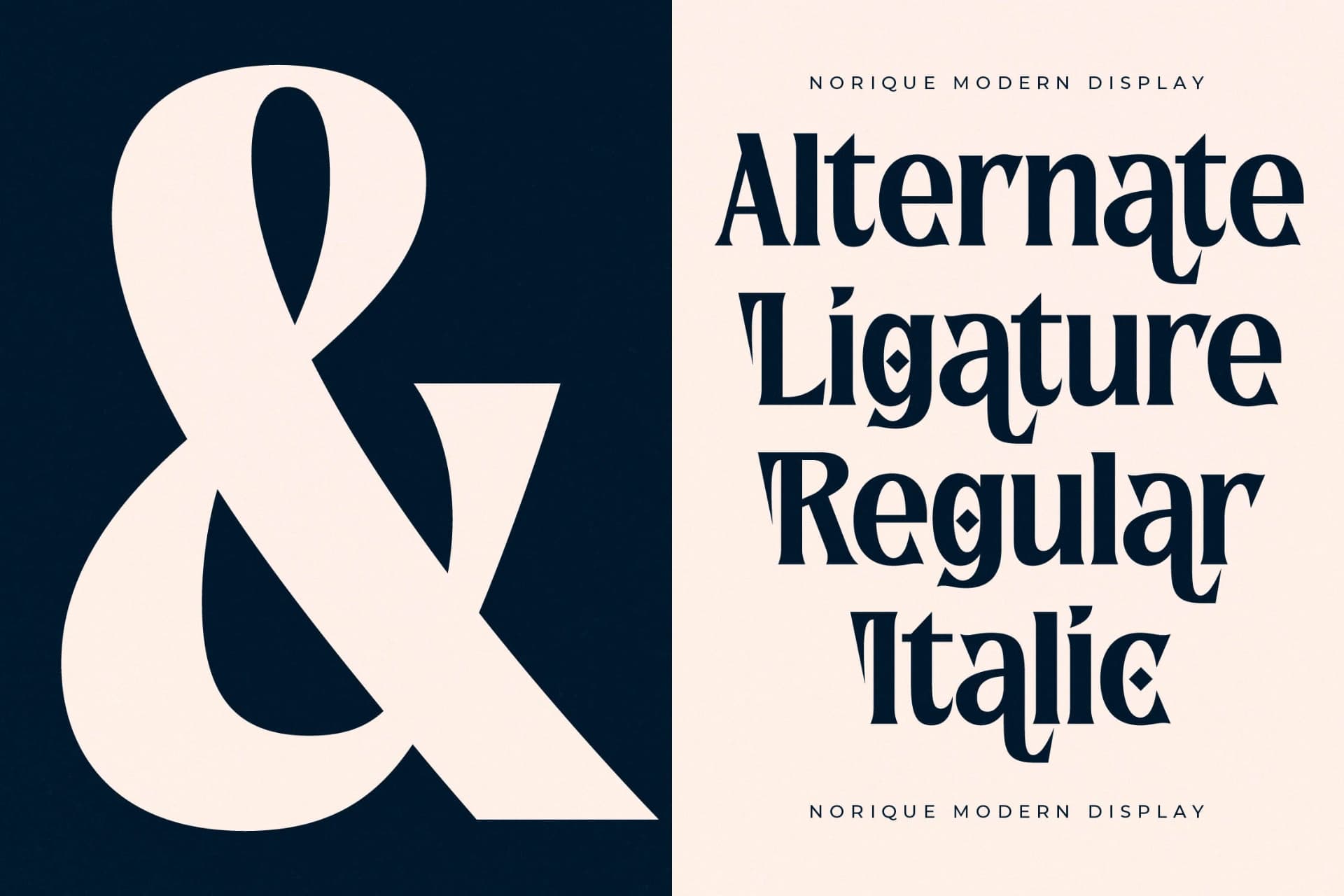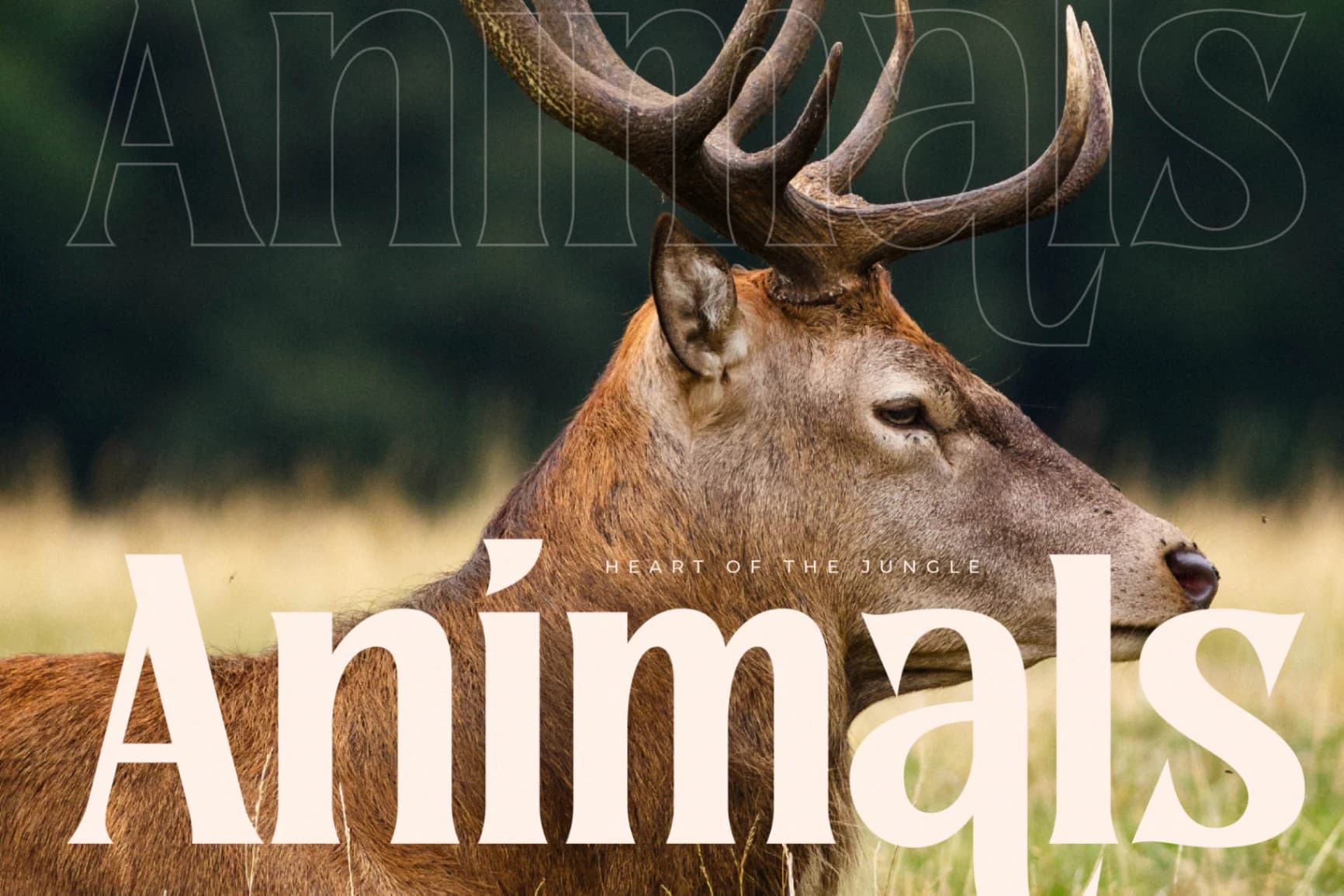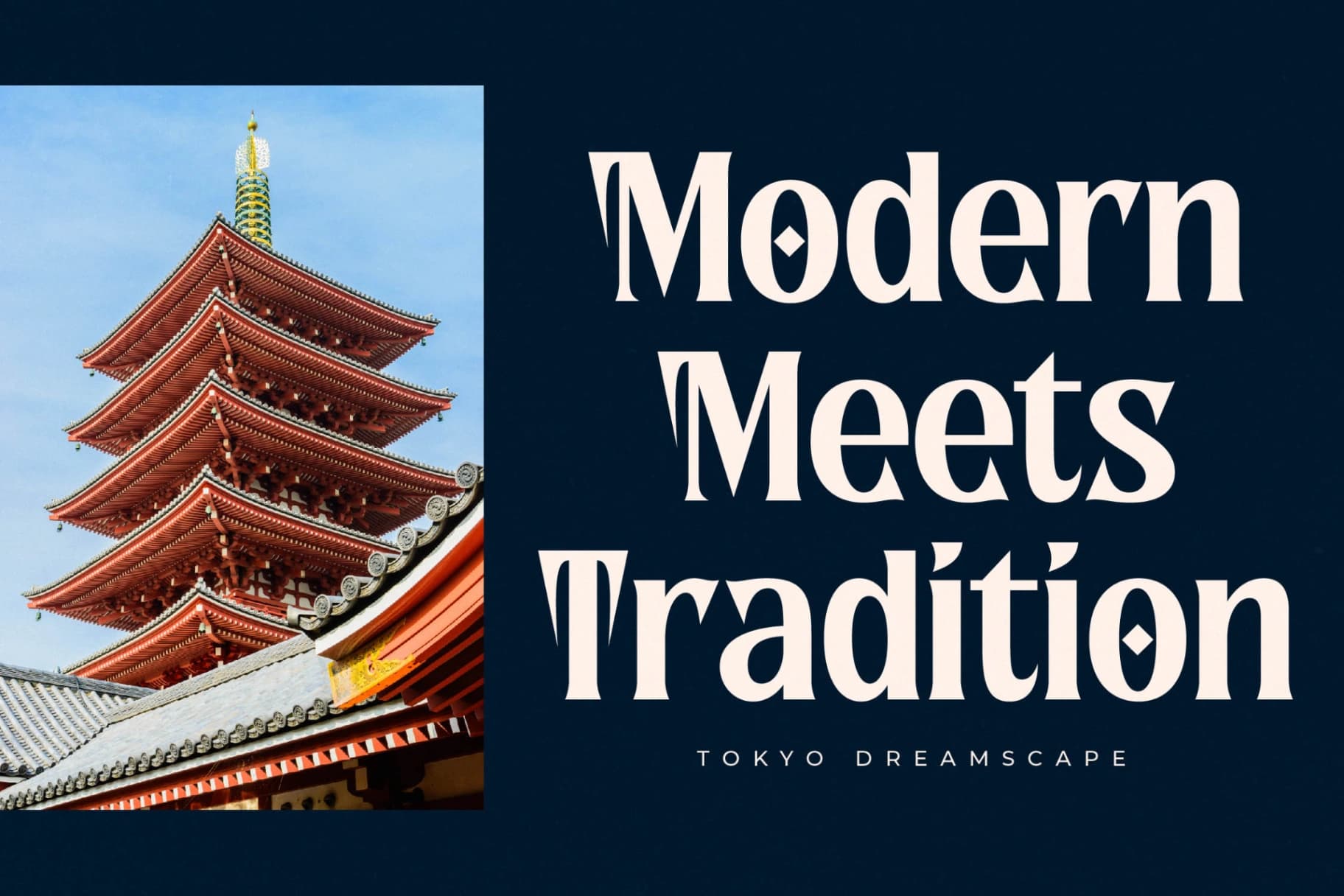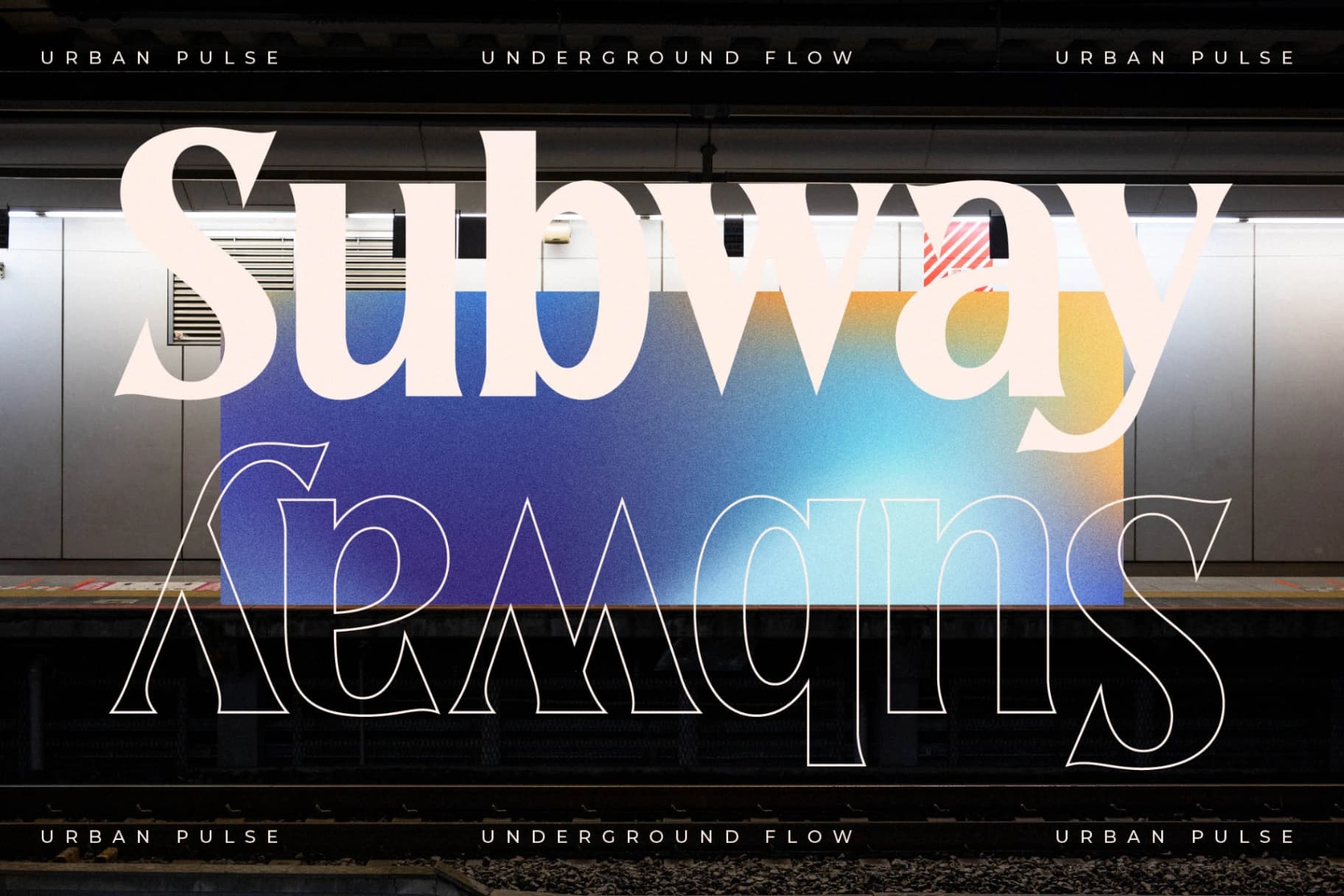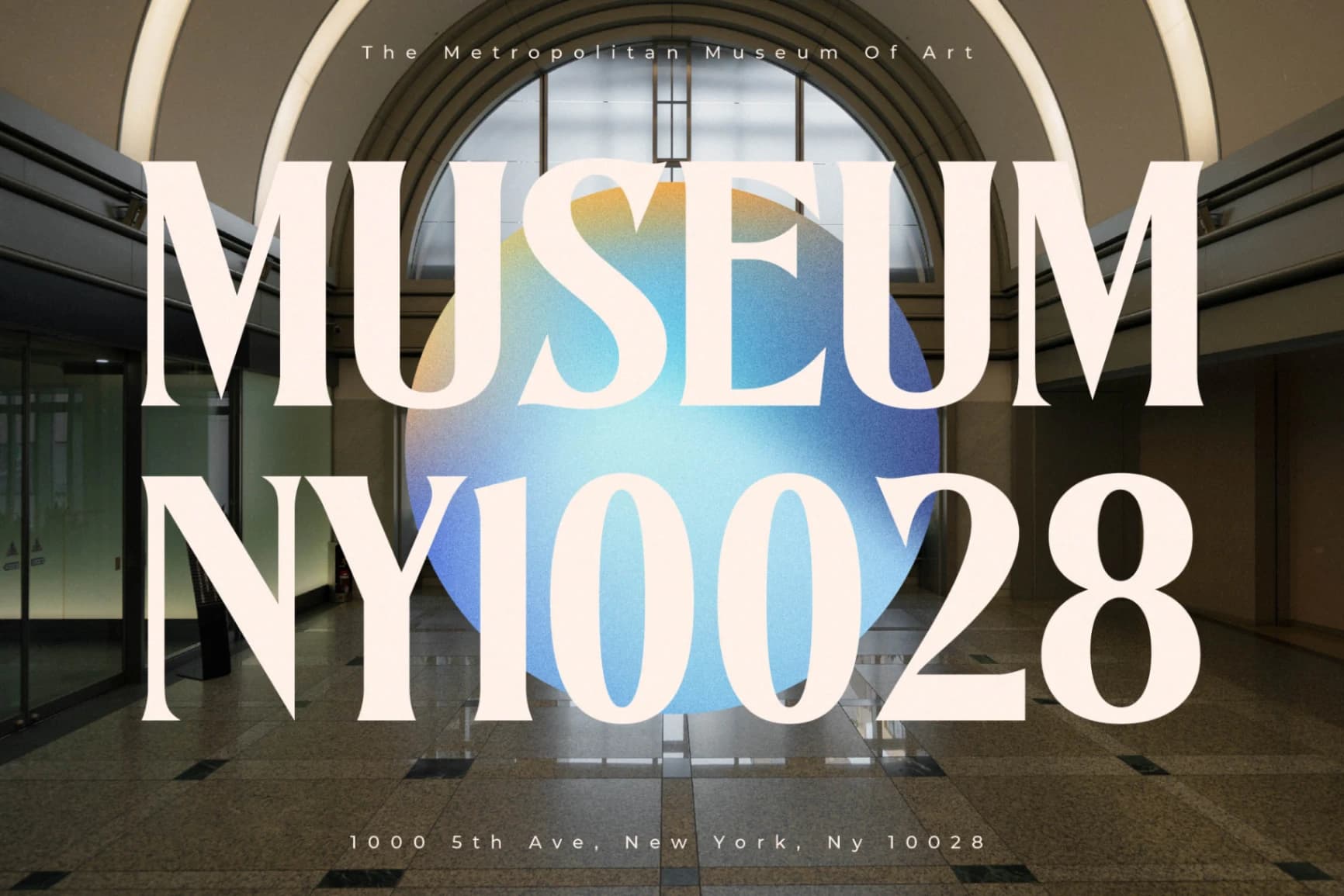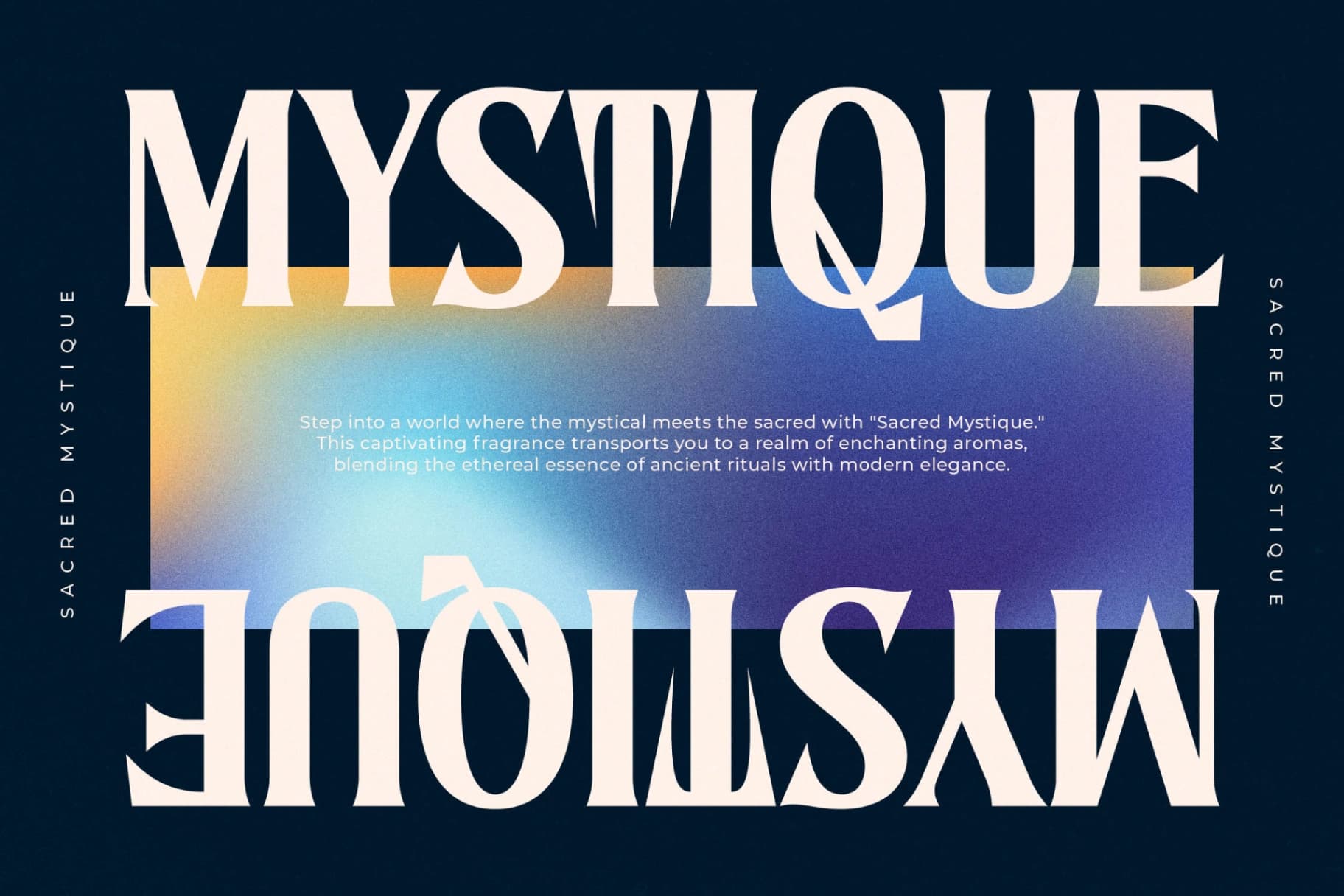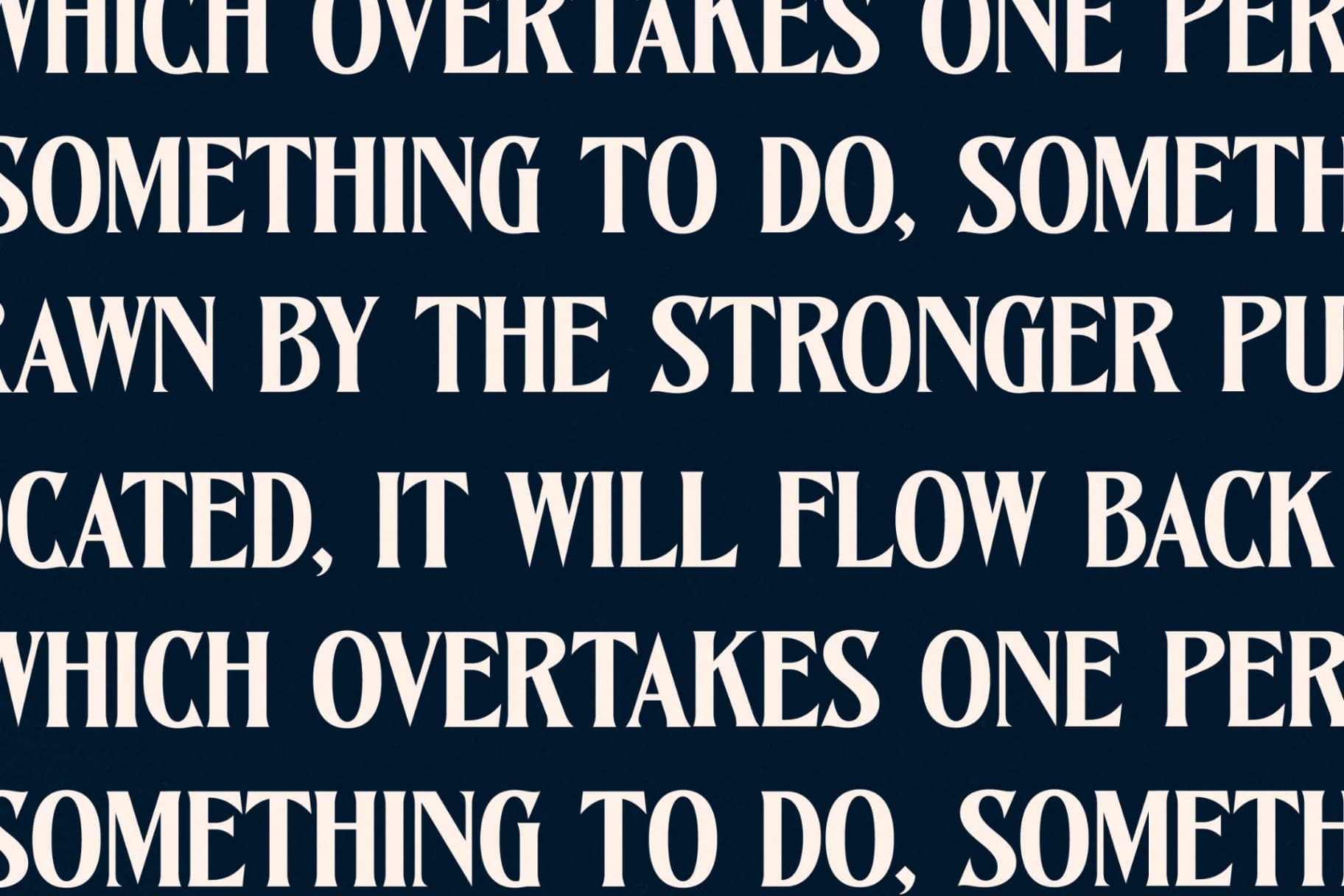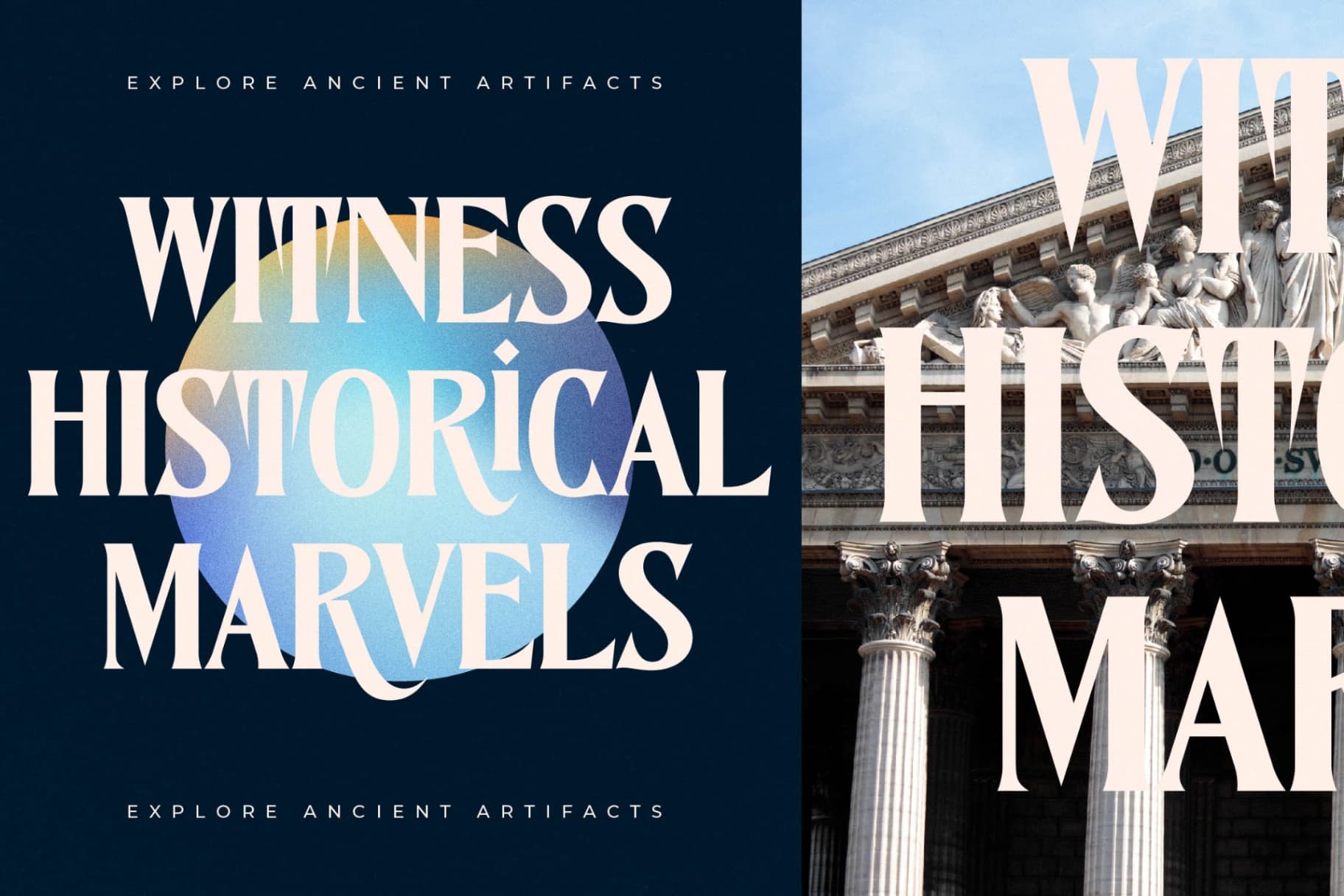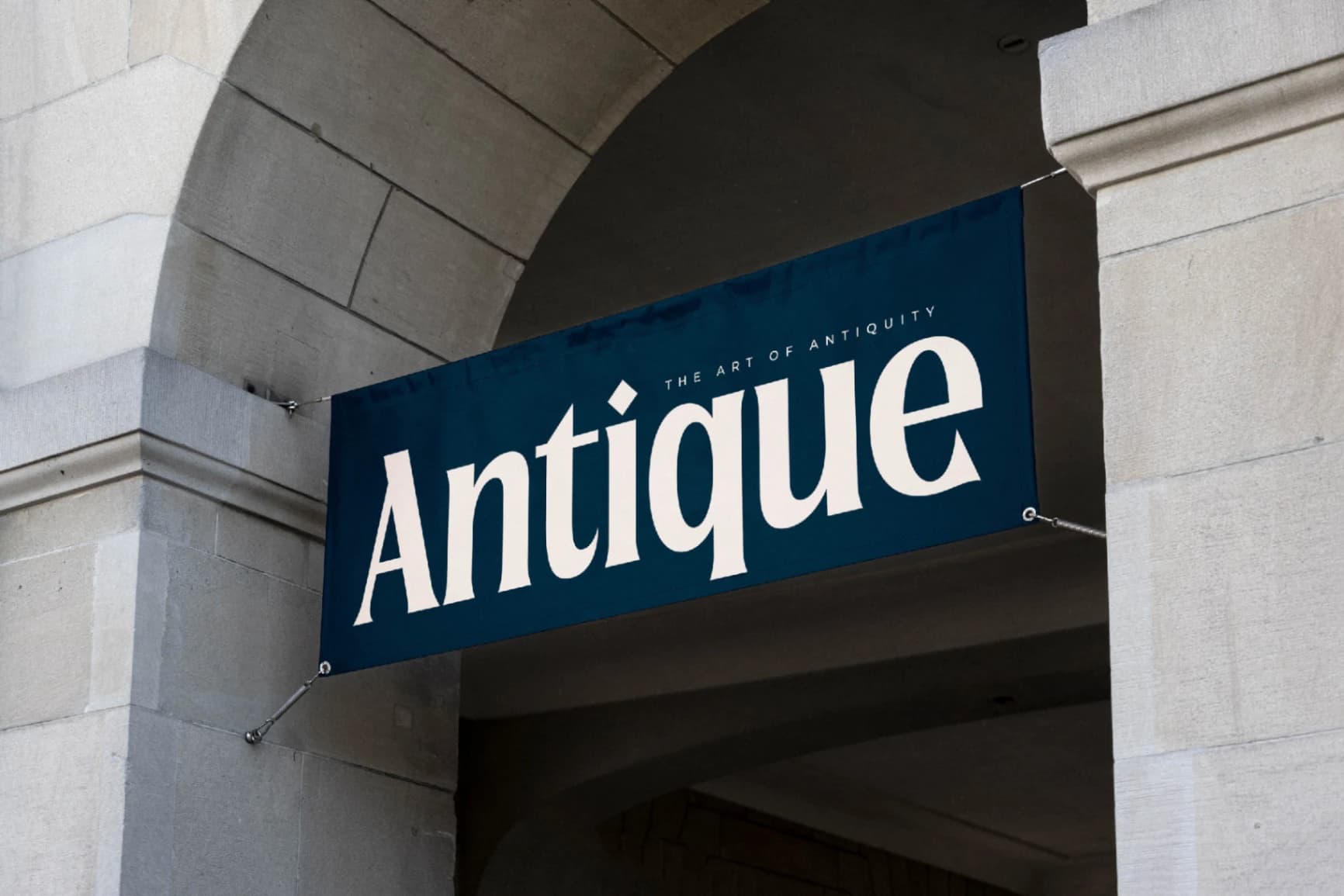
Norique - Modern Display Typeface
Elevate your design projects with unparalleled sophistication. Norique - Modern Display Typeface is a high-contrast serif font engineered for maximum visual impact at display sizes. It masterfully balances classical elegance with clean, contemporary lines, making it instantly recognizable and highly memorable. The dramatic interplay between thick stems and razor-thin hairlines creates a dynamic rhythm essential for capturing attention in competitive markets.
Achieve bespoke typography with extensive OpenType features. This highly versatile display package includes 28 unique ligatures and 33 stylistic alternates, granting designers deep creative control. These meticulously crafted glyphs allow for stunning custom headlines and logotypes that feel truly tailored. Furthermore, with its extensive multilingual support, Norique - Modern Display Typeface adapts seamlessly across global markets, making it incredibly versatile for international projects.
Instantly convey prestige and exclusive quality. Norique - Modern Display Typeface is the definitive choice for design collateral requiring an aesthetic of affluent refinement. It is perfect for luxury branding, high-end fashion editorial layouts, sophisticated magazine covers, premium packaging, and elegant film titling. Use it to inject a sense of timeless yet cutting-edge style into any visual identity.
Invest in a typeface that guarantees immediate impact. Offering both Regular and Italic styles (including a distinctive outline variation), Norique - Modern Display Typeface provides robust options for complete branding systems. Secure this powerful display solution today and transform standard headings into captivating visual experiences that resonate with discerning audiences.